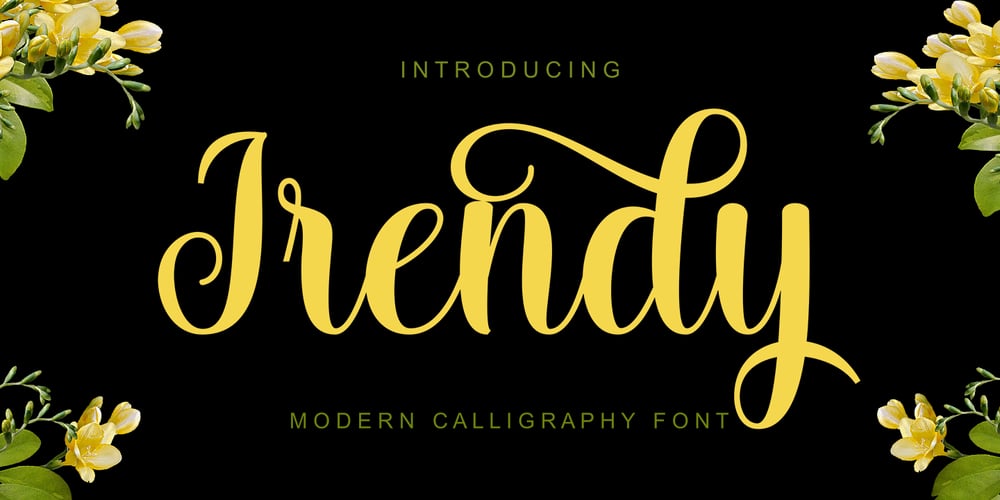
Irendy
Irendy font
Irendy Font Family was designed by khaidir and published by Gatype. Irendy contains 1 styles and family package options. Irendy is a sweet calligraphy font and includes pretty swashes. It can be used for various purposes such as logos, product packaging, wedding invitations, branding, headlines, signage, labels, signature, book covers, posters, quotes and more.